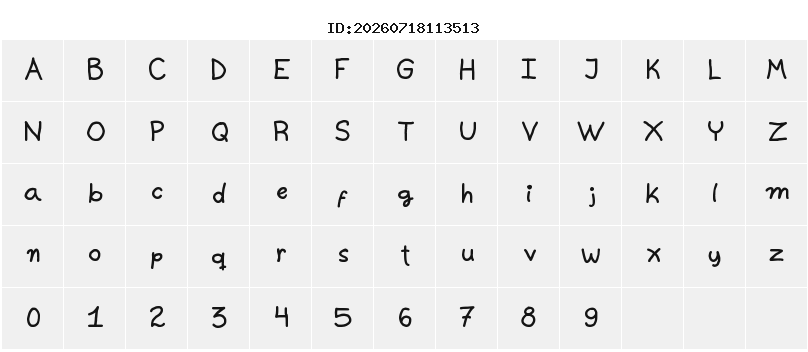
Castillo Preview
• Font Name: Castillo
• Font ID: castillo: Version 1.3
• Full Font Name: Castillo
• Version: Version 1.3 - Octubre 2012
• PostScript Name: Castillo
• Character Count: 236
About Castillo.ttf
Castillo.ttf is a modern, elegant sans-serif font designed for ultimate readability and visual harmony. Perfect for branding, headlines, web design, and print materials.